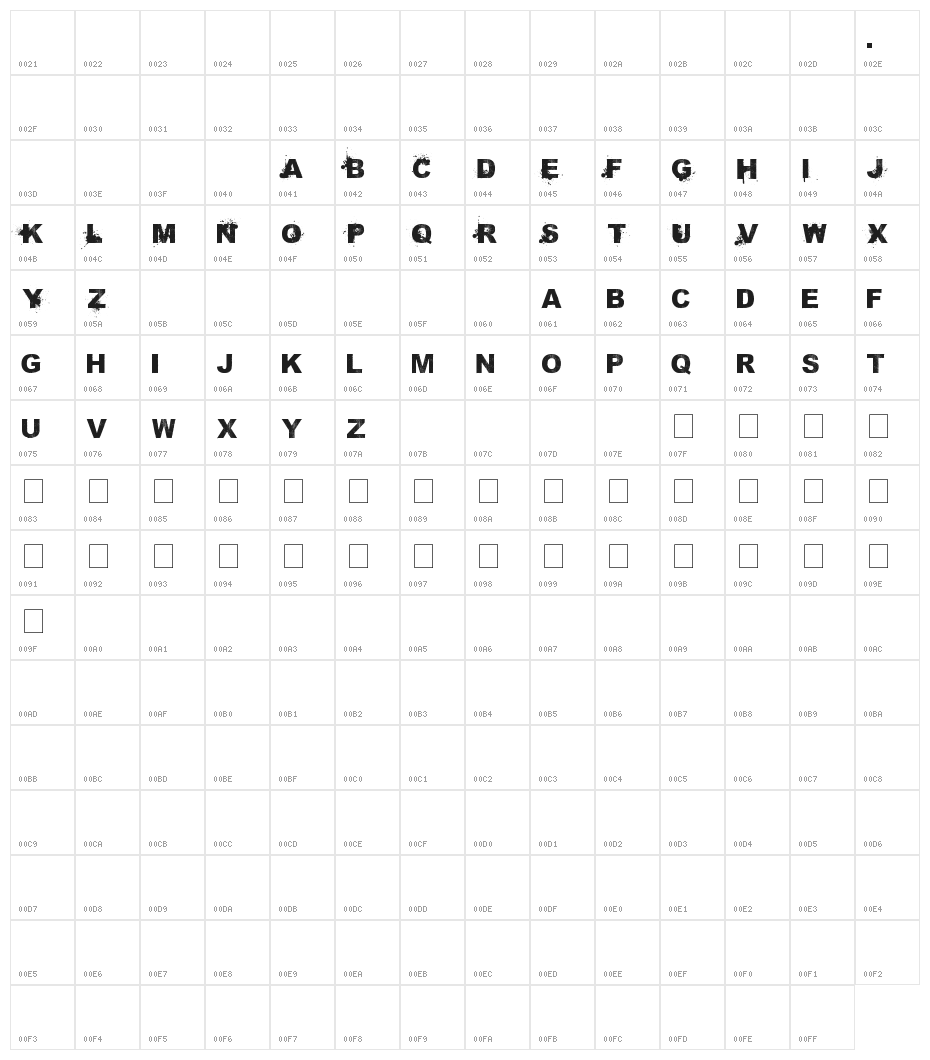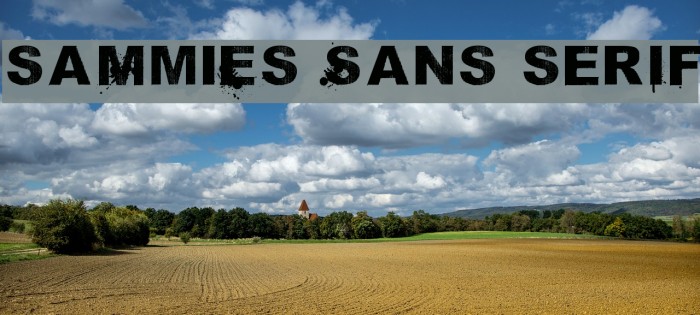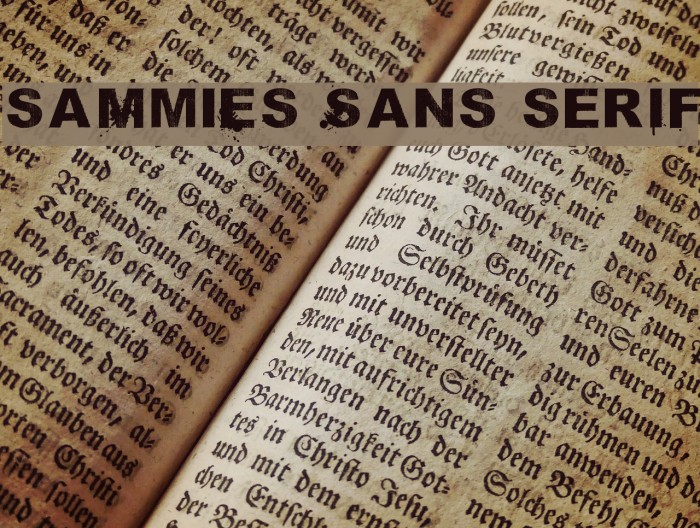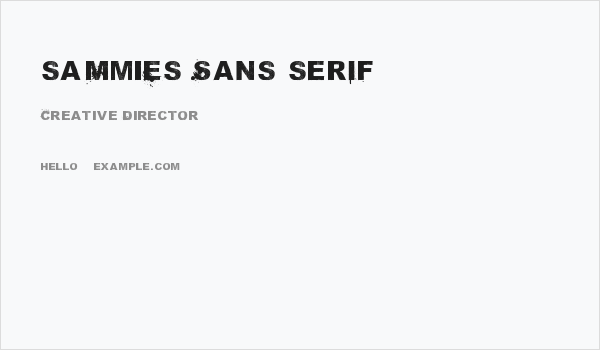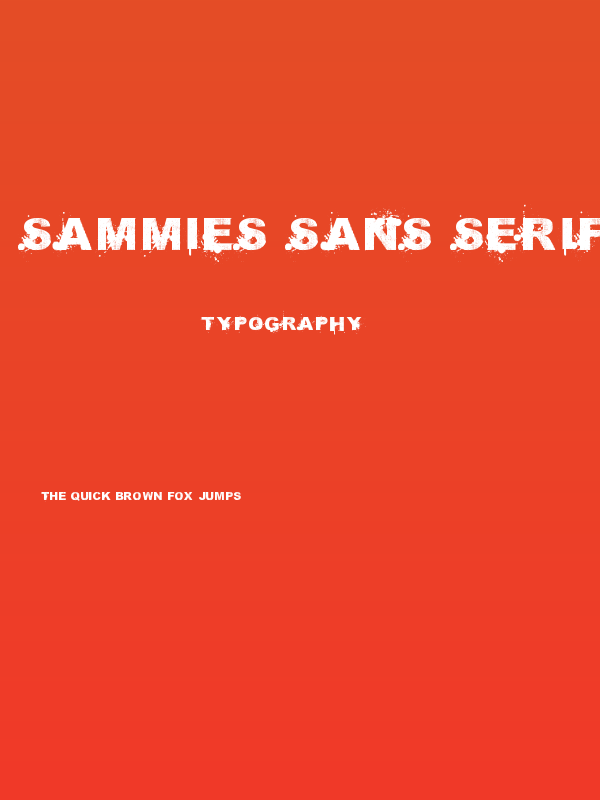
saMmiEs Sans serIf Font
saMmiEs Sans serIf Description
This font features a bold and distressed style, characterized by a grunge texture that gives it a rugged and edgy appearance. The uppercase letters are uniformly bold, with a consistent weight that maintains legibility despite the textured overlay. The distressed effect is more pronounced in certain areas, creating a dynamic and visually interesting look. This font is ideal for projects that require a strong, impactful presence, such as posters, album covers, or branding for edgy or alternative products. Its unique style makes it stand out, ensuring that any text set in this font will capture attention.
| Overall Style | Grunge, Edgy, Bold |
| Proposed Projects | Posters, album covers, branding for alternative products, edgy marketing materials. |